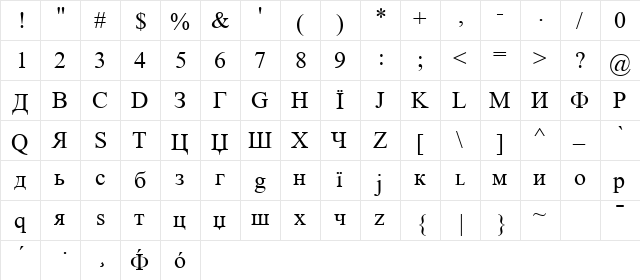
Bukwa Normal
Design Context for Bukwa Typeface
Bukwa offers clean, dependable letterforms without strong stylistic allegiance, making it a practical choice for designers who need flexibility.